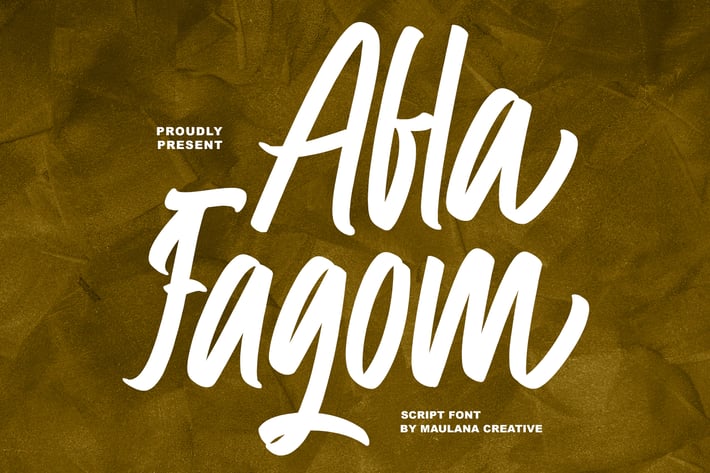
Afla Fagom Script Font
Afla Fagom script font. This font is good for logo design, Social media, Movie Titles, Books Titles, a short text even a long text letter and good for your secondary text font with signature or script typeface. Make a stunning work with Afla Fagom script font.